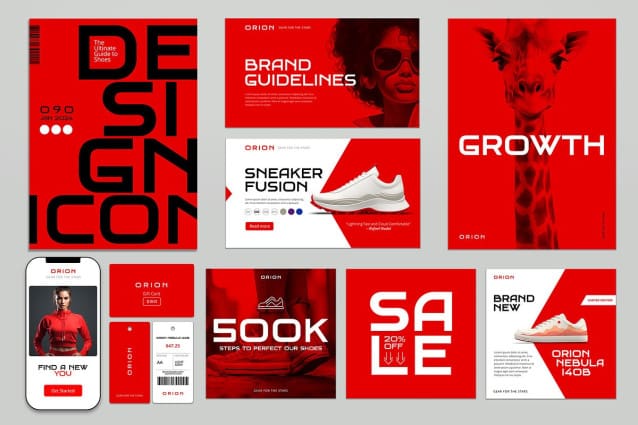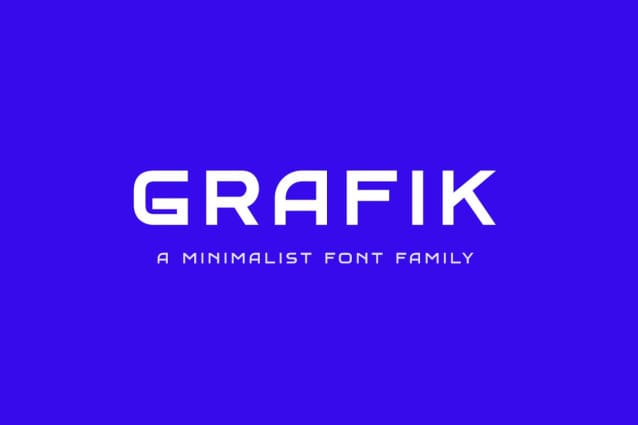
Grafik Font
Grafik Font is a distinctive typeface that creates a striking impression, ideal for logos and financial brands. This strong, minimalist wide sans serif typeface exudes confidence and modernity with an aspirational edge.
Offered in Regular and Bold styles, Grafik Font commands attention while maintaining crisp legibility even at a distance. Generous letter spacing and width allows the wordmarks Grafik creates to truly own the space and layout.
Clean lines and an all-caps ruthless simplicity pairs remarkably well with icons and graphic elements in branding. For finance and banking identities seeking a bold modernist statement, Grafik delivers.
Logos, slogans and even headlines ring loud and clear in this display sans serif. Grafik provides optics optimized for small spaces without losing distinctive character on large-format usage like posters and banners.
Look no further than Grafik when aiming for maximal visible impact to convey leadership and strength with a refined style. Standing tall in financial tech, banking, investments and more – Grafik makes brands and messages shine.